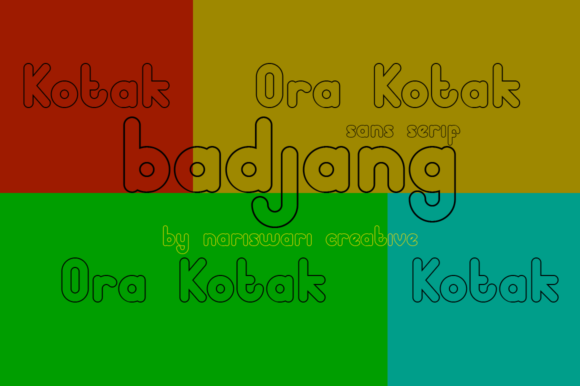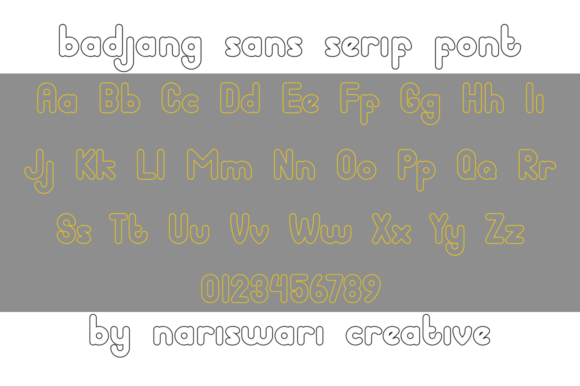
The Perfect Font for Your Next Project: Unleashing the Power of Badjang Font
Have you ever stared at a blank canvas, unsure of where to start, but suddenly, a single font sparks an idea and sets your creativity ablaze? For designers, this moment is pure magic. It’s the moment when the right font can elevate an entire project from meh to mesmerizing. For me, this moment arrived when I discovered the Badjang Font – a minimal and neat sans serif font that effortlessly elevates any design.
The Badjang Font is a versatile tool, capable of being paired with an incredible range of projects. From modern websites to sleek branding materials, its clean lines and sophisticated style make it a valuable addition to any designer’s toolkit. Whether you’re a seasoned pro or a budding creative, incorporating the Badjang Font into your designs can breathe new life into your ideas.
Badjang Font Key Features
- Unique Characteristics: The Badjang Font features a unique blend of traditional and modern elements, making it ideal for designs that require a touch of elegance and sophistication.
- Language Support: The Badjang Font supports a wide range of languages, including Latin, Cyrillic, and Greek scripts, making it a great option for international designs.
- Weight and Style: The font comes in a range of weights and styles, including regular, bold, italic, and bold italic, providing users with a high degree of flexibility and customization options.
Badjang Font Review
Overall, I was excited to dive into the world of the Badjang font, and I’m glad I did. Here’s what I liked:
- ✨ Unique aesthetic: The Badjang font has a distinct, quirky feel that sets it apart from more traditional fonts.
- ✨ Good for creative projects: The font’s playful nature makes it perfect for projects that require a touch of whimsy, such as children’s books or advertisements.
- ✨ Wide language support: The font supports a wide range of languages, making it a great option for multilingual projects.
- ⚠️ Limited font sizes: The font can become difficult to read at smaller sizes, which may limit its use in certain contexts.
- ⚠️ Not ideal for body text: The font’s irregular shape and letterforms can make it challenging to read in large blocks of text.
- ⚠️ May not be suitable for formal documents: The font’s playful nature may not be suitable for formal documents or publications.
Overall, I think the Badjang font is a great addition to any designer’s toolkit, but it’s best used in the right context. With a little creativity and planning, it can add a unique touch to your projects.
Getting the Most Out of Badjang Font
Badjang Font is a versatile font that works well in various design contexts. To get the most out of it, consider the following tips:
1. Use it for titles and headings to create a bold and eye-catching effect.
2. Experiment with different font sizes and styles to create visual interest.
3. Pair it with other fonts to create a unique and cohesive design.
Badjang Font is commonly used in:
1. Branding and logo design.
2. Marketing materials such as brochures and flyers.
3. Digital design projects such as websites and social media graphics.